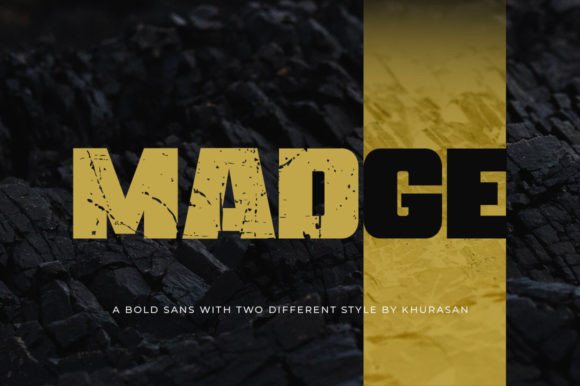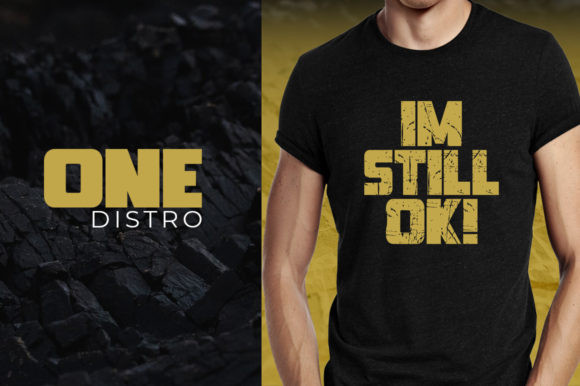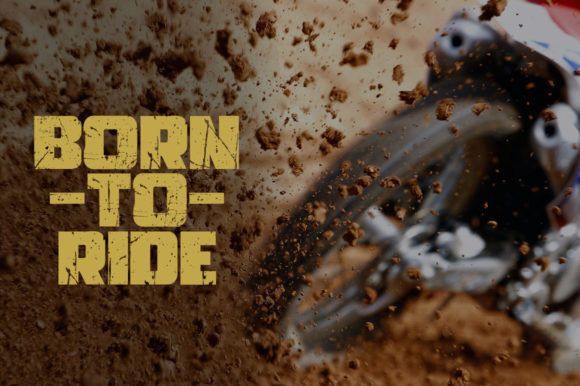
Madge Font
Madge is a bold and chunky lettered display font. Simple but with a strong visual effect, this font will instantly make your creation stand out.